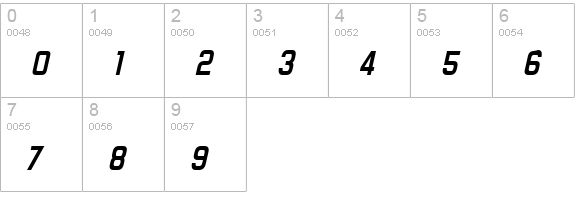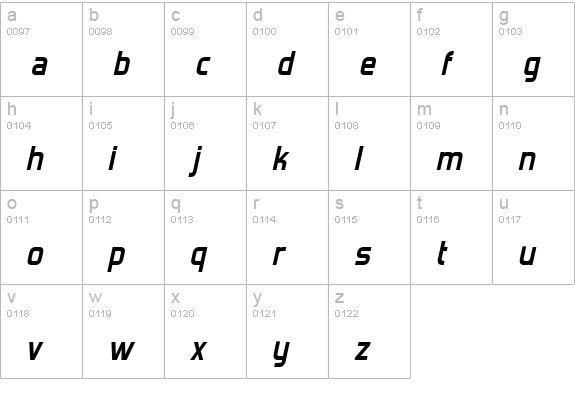
Forgotten Futurist Bold Italic is a strong, high-contrast, italic variant in the Forgotten typeface family \xE2\x80\x94 well suited to headlines, attention-grabbing titles, and strong calls-to-action.
Forgotten Futurist Bold Italic font is a captivating and dynamic typeface that perfectly combines boldness with a touch of elegance. Its unique design exudes a sense of modernity and futurism, making it ideal for projects that require a bold yet sophisticated look. The italicized style adds a sense of movement and flair to any text, making it stand out from the crowd. And the best part? Forgotten Futurist Bold Italic font is available for free download at FontsMarket.com. This means you can easily access this striking typeface and use it in your designs without any cost. So, whether you're working on branding, advertising, or any other creative project, this font is sure to make a lasting impression. Don't miss out on the opportunity to elevate your designs with the unique and eye-catching Forgotten Futurist Bold Italic font.